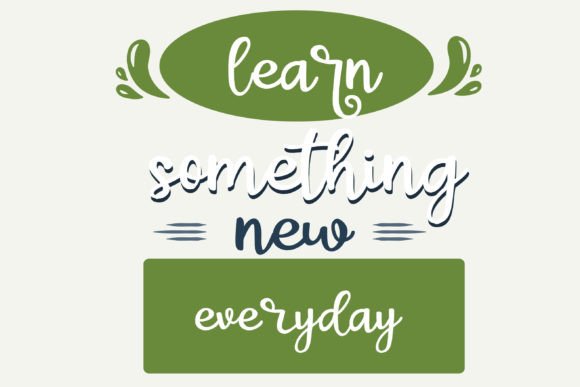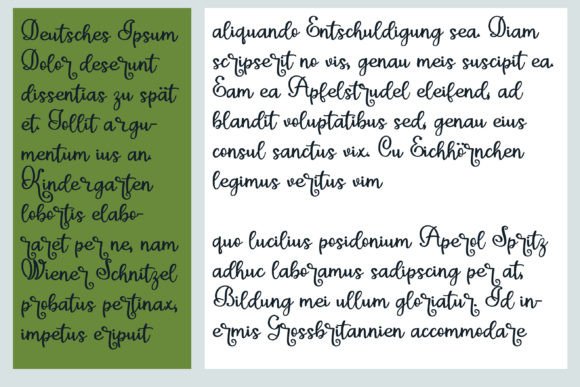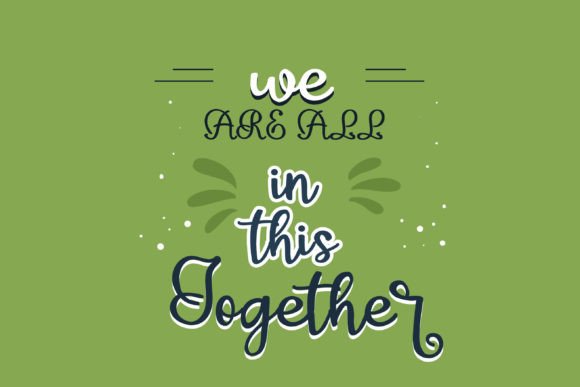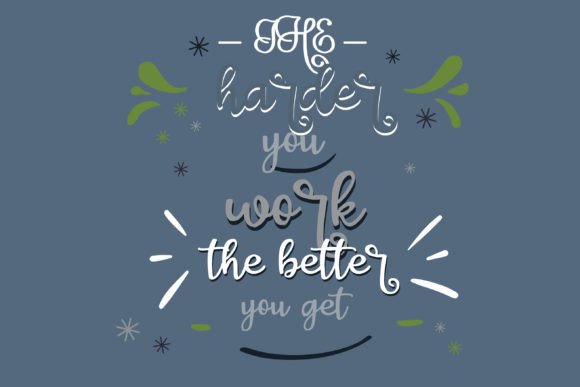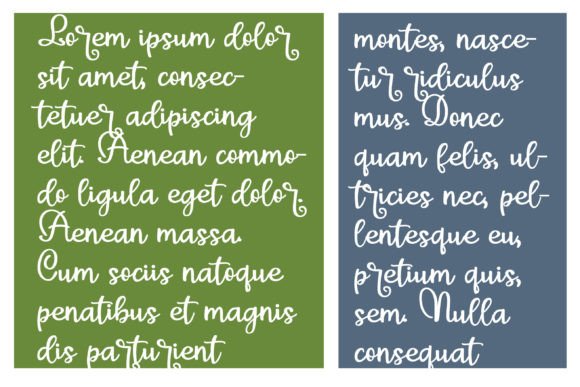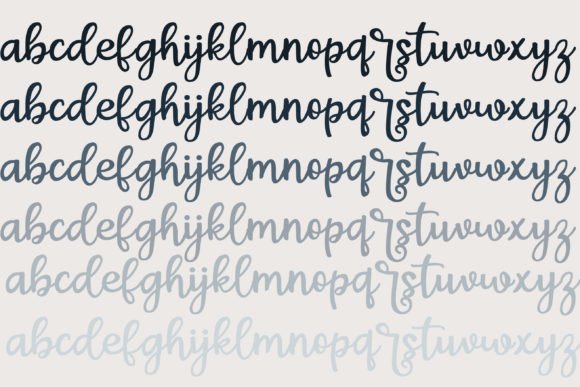
Introduction to Scarmony Font
Have you ever stared at a blank canvas, feeling like your creative project is missing that one special something? You know, the magic that takes it from good to great? For many designers, that something is the perfect font.
Enter the whimsical world of the Scarmony Font, a playful script font that adds a touch of elegance and fun to any design. Its fancy, curly uppercase letters will transport your projects to a world of wonder and excitement, making them stand out from the crowd with its unique charm. Whether you’re working on a design resource, creating an invitation, or crafting a special card, the Scarmony Font is the perfect companion for your creative journey.
Key Features of Scarmony Font
- Unique characteristics include a modern, elegant design and a wide range of typographic options.
- Perfect for designers and artists working on creative projects, including graphic design, digital art, and typography.
Honest Review: Scarmony Font
As a designer, I’m always on the lookout for high-quality design resources that can elevate my creative projects. Recently, I had the chance to work with the Scarmony Font, and I’m excited to share my honest review.
Here’s what I love about the Scarmony Font:
- ✨ Beautiful, elegant design: The Scarmony Font is a stunning addition to any design project. Its unique curves and lines add a touch of sophistication and style.
- ✨ Highly customizable: The font is available in a range of weights and styles, making it easy to find the perfect version for your project.
- ✨ Transparent background: The font’s transparent background makes it easy to overlay on top of images or other design elements.
While the Scarmony Font is an excellent choice for many projects, there are a few limitations to consider:
- ⚠️ Limited language support: The font only supports a limited range of languages, which may be a concern for designers working on international projects.
Overall, I’m impressed with the Scarmony Font. Its high quality and elegant design make it a great choice for many creative projects. However, designers should be aware of the limitations and consider these factors when choosing the font for their project.
Tips for Getting the Most Out of Scarmony Font
To maximize the use of Scarmony Font, experiment with different font sizes, colors, and combinations to achieve the desired effect in your creative project.
The Scarmony Font is ideal for a variety of creative projects, including logos, branding, and typography-based designs. Its versatility and high-quality output make it a valuable addition to any design resource library.